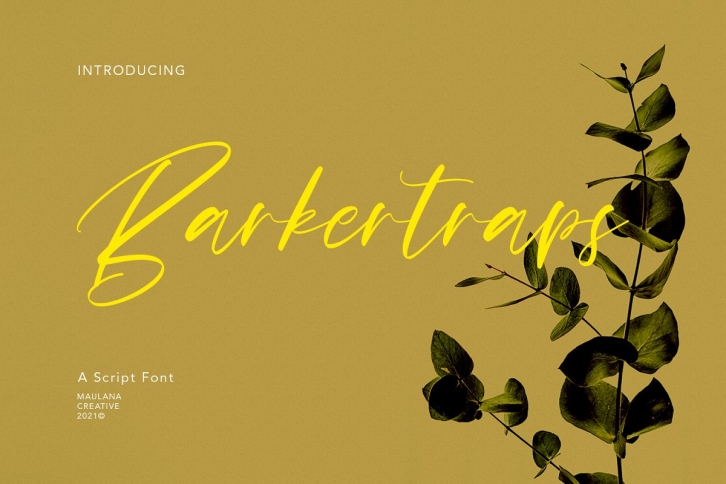
Barkertraps is casual script font, with thin high contrast stroke, slanted and fun character. It has Opentype features ligatures of character, To give you an extra creative work. Barkertraps font support multilingual more than 100+ language. This font is good for logo design, Social media, Movie Titles, Books Titles, a short text even a long text letter and good for your secondary text font with sans or serif. Make a stunning work with Barkertraps font.